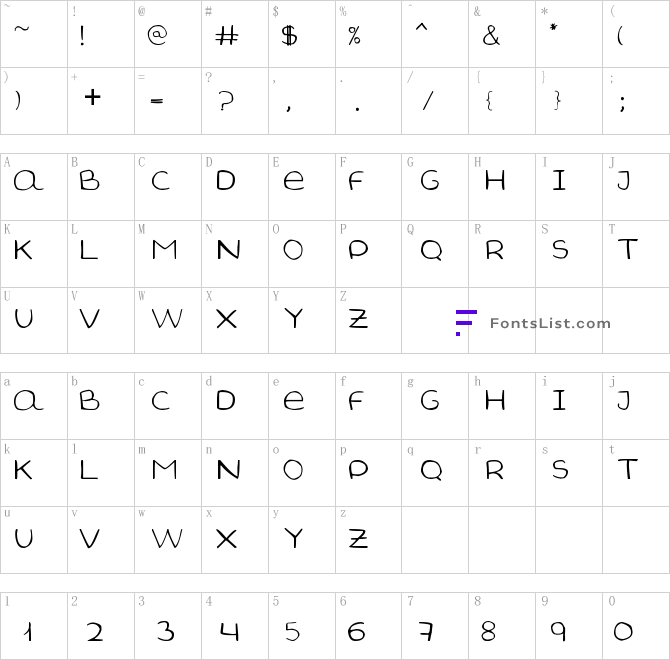
- Font Name:Aida Scrap Small Size
Aida-Scrap-Small-Size.ttf is a very beautiful artistic font, Aida-Scrap-Small-Size.ttf is widely used in the design and printing of various books and pictures,Aida-Scrap-Small-Size.ttf has a strong visual impact,Aida-Scrap-Small-Size.ttf is a commonly used font in newspapers, magazines and books, and is used in posters, e-commerce Poster design, store design, logo design, font design and other fields.Aida-Scrap-Small-Size.